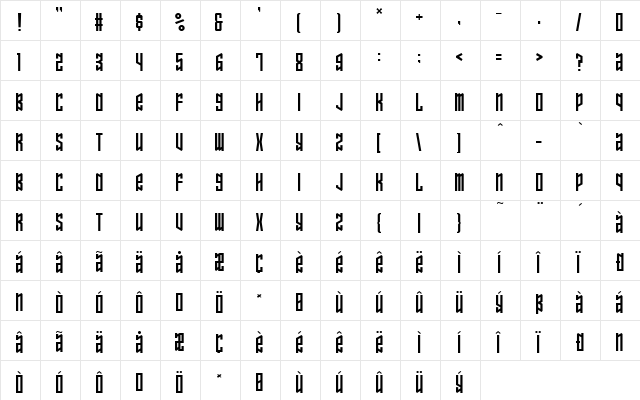
Complete Ozone Layer Regular glyph index. Displaying only characters natively supported by Ozone Layer Regular font.
Ozone Layer is a composed and adaptable typeface that performs quietly and consistently across a wide range of design contexts.